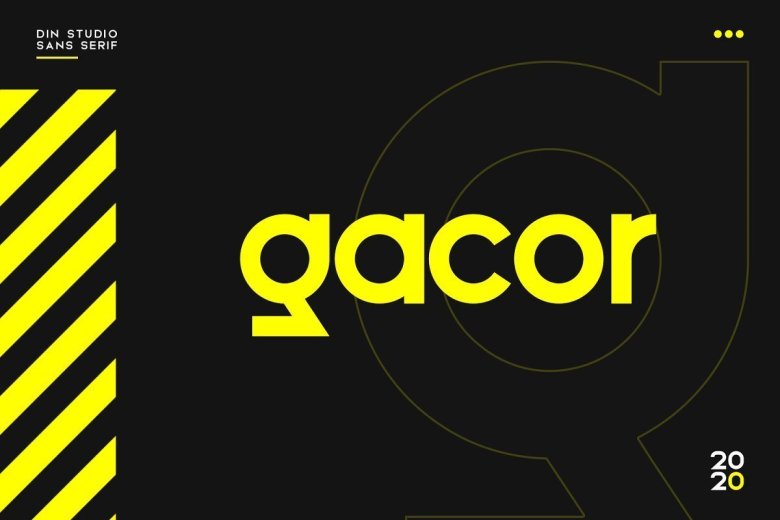
Gacor Urban Sans Serif Font
Gacor Font is urban sans-serif font, Made for any professional project branding. It is the best for branding, printing, and quotes. Every letter has a unique and beautiful touch.
Gacor Font is perfect for branding projects, home-ware designs, product packaging, magazine headers – or simply as a stylish text overlay to any background image.